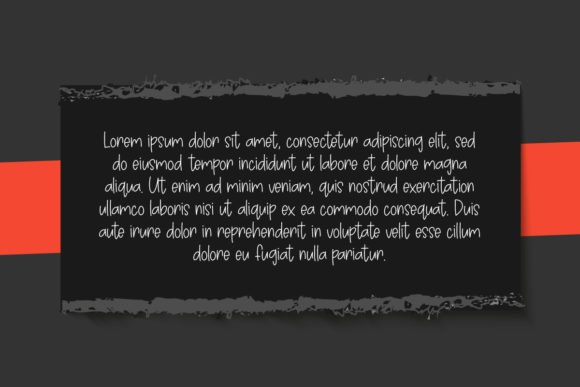
Avoids Dislikes Font
db-ku.com - Script & Handwritten -- The Avoids Dislikes is a beautiful handmade font. It has a fun and beachy vibe which is perfect for quotes, products, logos, packaging, banners, tees, story or posters with a lot of text.